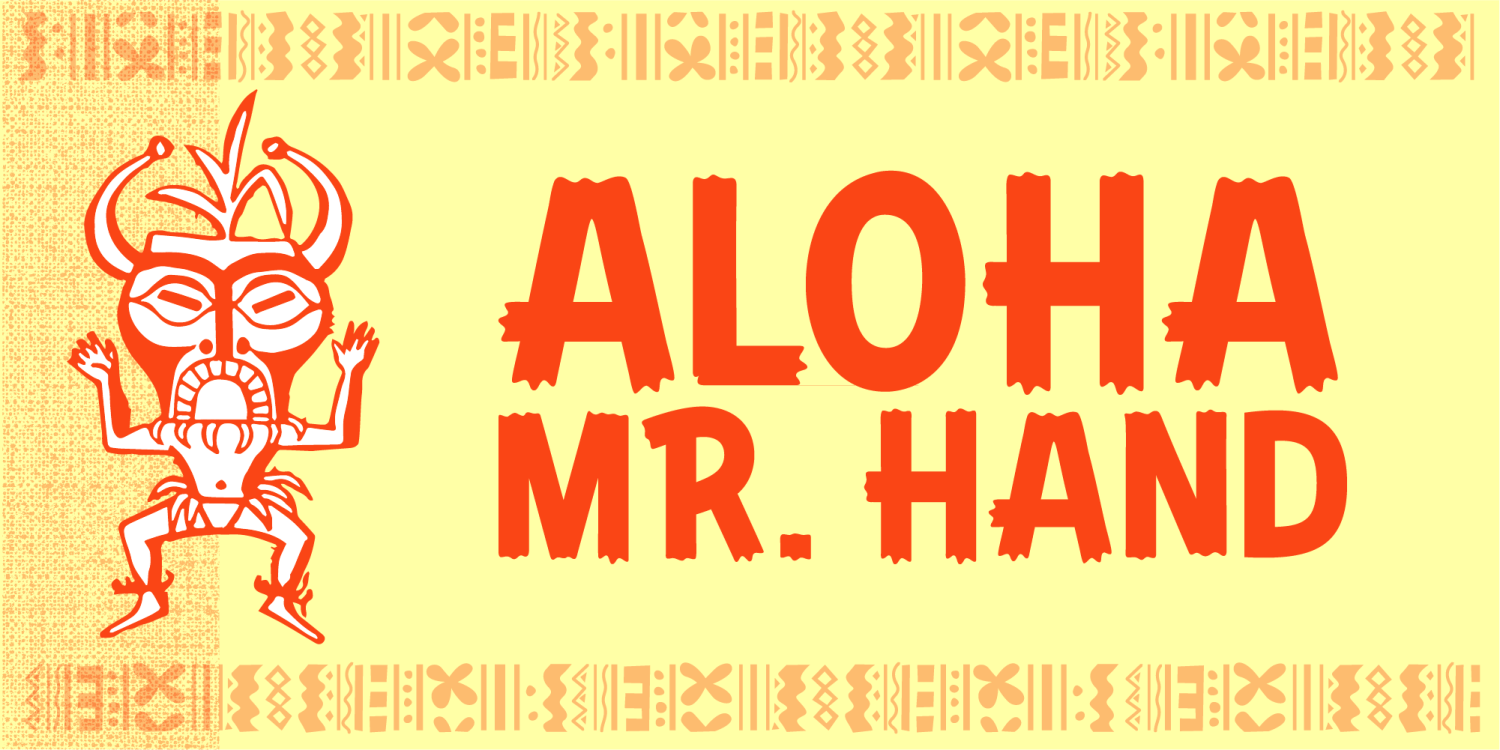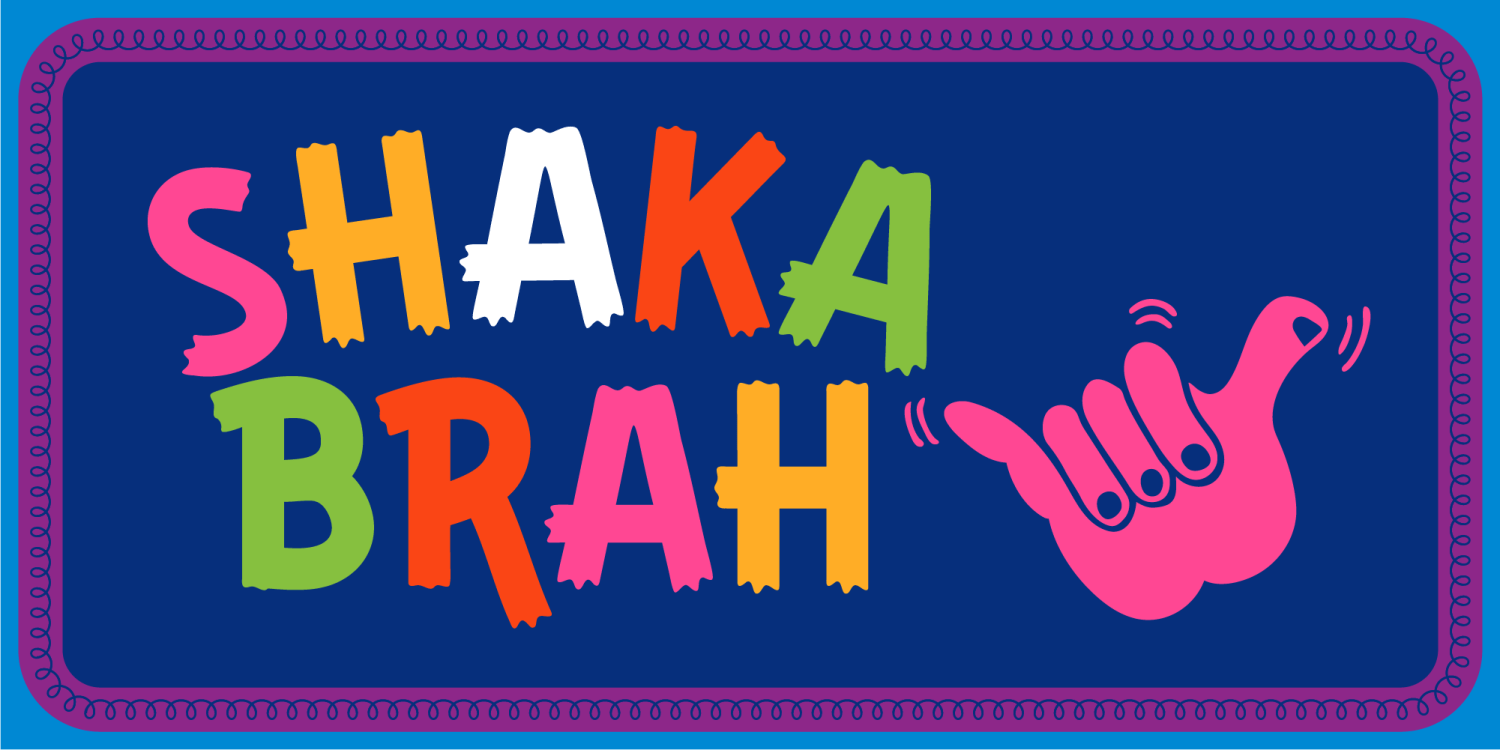
About Kahuna
Imagine a whimsical luau where coconut cocktails flow, hula skirts sway, and ukulele tunes serenade the sunset. Now, picture those tropical vibes magically transforming into letters – that's Kahuna! With its retro Hawaiian charm, this font is…